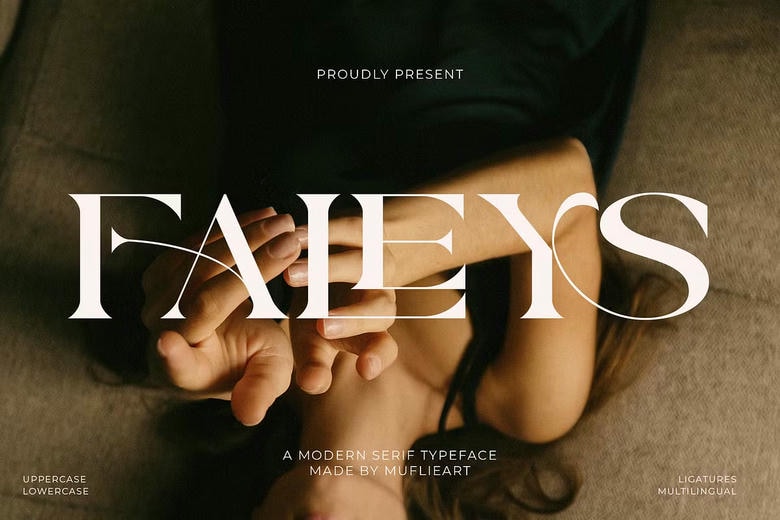
Faleys Font
Faleys is a graceful, gorgeous and showcases contemporary serif font. Faleys with its contemporary and minimalistic appearance offers a luxurious, sophisticated, and uncluttered appearance to your projects including sites, contemporary logos, brand names, social media quotes, and wedding stationery, magazines, etc.
Faleys has unique and elegant capital letters A-Z as well as has unique alternates and ligatures which makes Faleys a beautiful font which can be customized to suit your projects and jobs you desire.
Faleys Serif Font